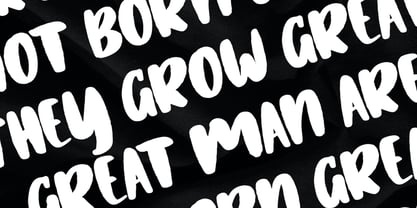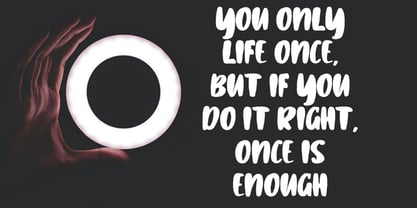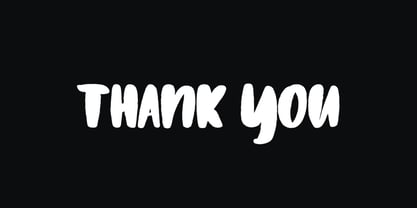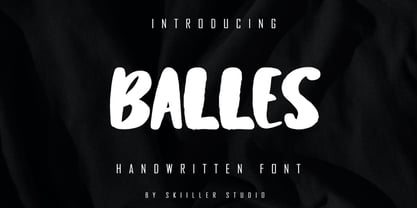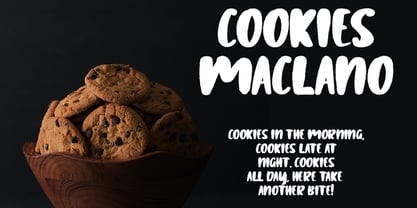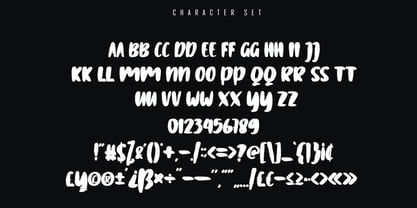
Balles
by Skiiller Studio
The Balles Font Family was designed by Irfan Mahmudin and published by Skiiller Studio. Balles contains 1 styles. More about this family
Balles is a bold handwritten font with strong strokes and an expressive brush style. Its rough yet balanced curves give every design an energetic, handmade feel. Perfect for logos, posters, branding, apparel designs, social media graphics, and creative titles, Balles brings a striking and artistic touch that stands out beautifully in both modern and casual concepts.
Designers: Irfan Mahmudin
Foundry: Skiiller Studio